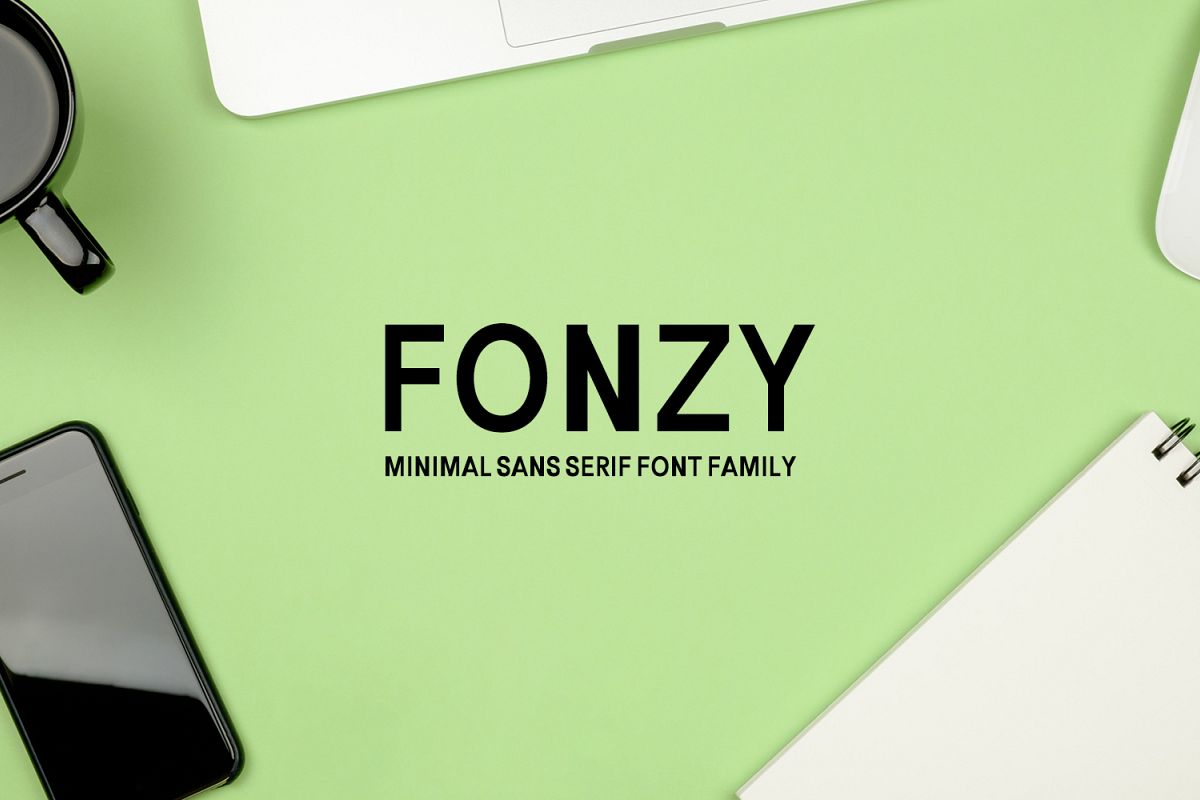
Fonzy Minimal Sans Serif 5 Font Pack
Fonzy-Bold
Fonzy-Light
Fonzy-Thin
Fonzy-Regular
Fonzy-Outline
Fonzy is a clean vibrant sans serif 5 font family pack. This font has a strong personality, that makes it perfect for use in headline, wedding invitation, greeting cards, T-shirt, branding and logo projects, merchandise, social media posts, product packaging, or any design that you create.
• Font Weight: Regular, Thin, Light, Outline and Bold
• Uppercase Multilingual Letters
• Lowercase Multilingual Letters
• Numbers and Punctuation
• Alternative